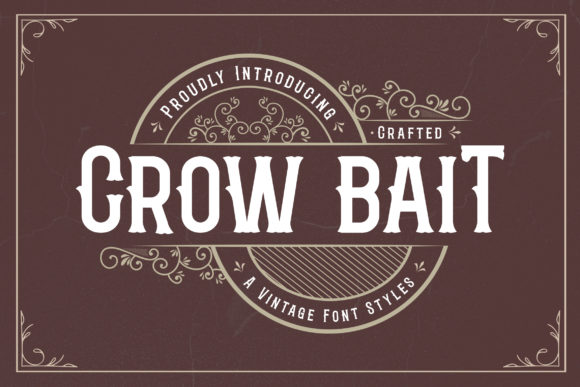
**Crow Bait: The Bold and Vintage Display Font for Unforgettable Impact**
Embark on a typographic adventure with Crow Bait, a captivating display font that transports you to a bygone era of bold and evocative designs. Crafted by the renowned TypeFactory, Crow Bait is more than just a font; it's a timeless masterpiece that will elevate your creations to new heights.
Immerse yourself in the vintage charm of Crow Bait, where each letter exudes a captivating personality. Its bold strokes and impeccable detailing evoke the nostalgic charm of yesteryear, while its contemporary touch ensures effortless readability. Whether you're crafting eye-catching headlines, creating unforgettable posters, or designing captivating social media graphics, Crow Bait is your ultimate companion.
With Crow Bait in your arsenal, you'll unleash a world of possibilities. Its versatility knows no bounds, seamlessly adapting to a myriad of projects. Unleash your creativity and let Crow Bait become the cornerstone of your most captivating designs.